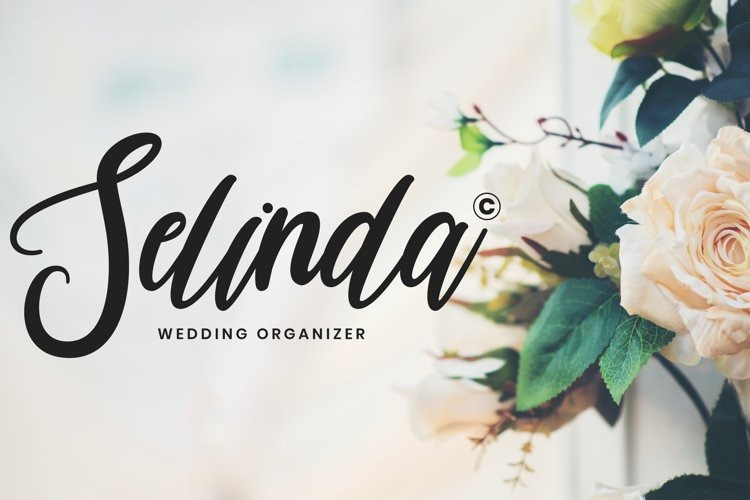
Havana Calligraphy Font
This is a versatile calligraphy typeface featuring basic variations, fine lines, a beautiful and elegant touch. This versatile script font has a wide range of applications ranging from greeting cards to headlines and is guaranteed to add a romantic touch to your next design.This font is PUA encoded which means you can access all of the cute glyphs and swashes with ease!